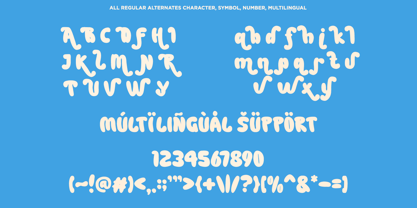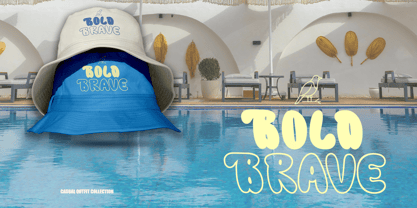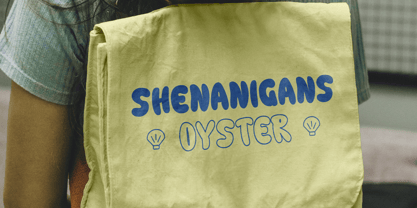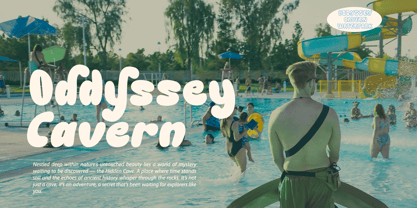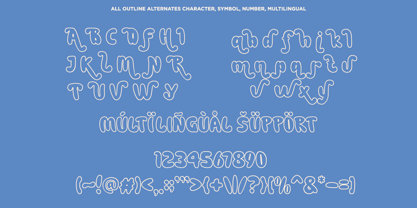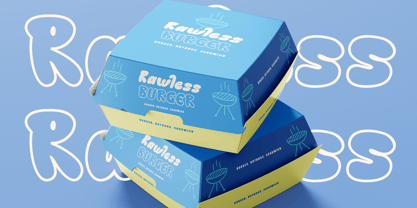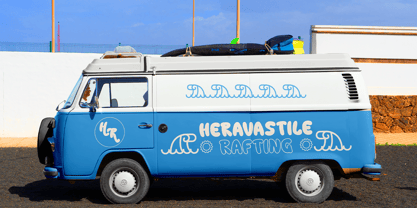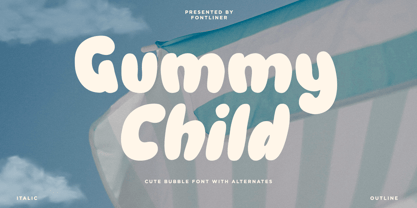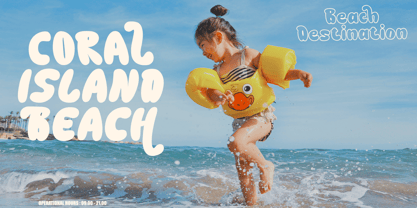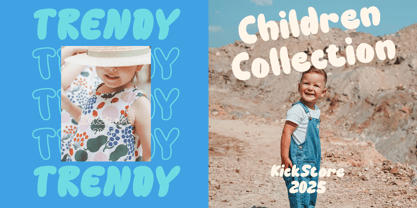
Gummy Child
by Font Liner
The Gummy Child Font Family was designed by Ghina Luthfiarieska and published by Font Liner. Gummy Child contains 3 styles and family package options.
Gummy Child is cute bubbel font, groovy font you've been waiting for! Its rounded, playful curves bring a touch of y2k nostalgia to any design, while its modern feel keeps it fresh and relevant. Gummy Child perfect for social media graphics, website headers, or quirky merch, to add a touch of fun and personality.
- Character Alternates
- Multilingual Support